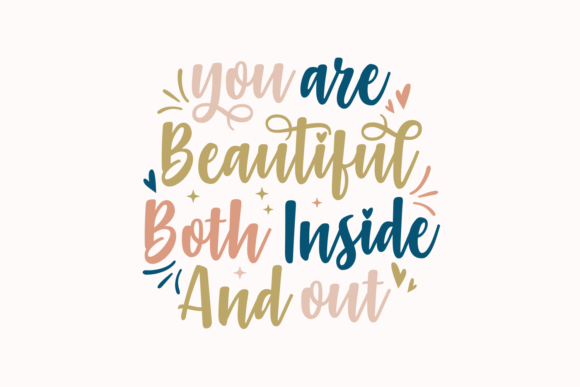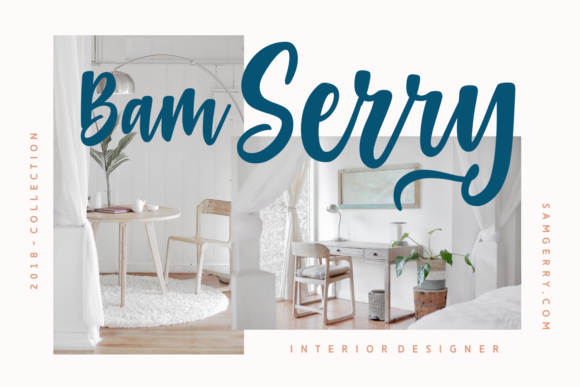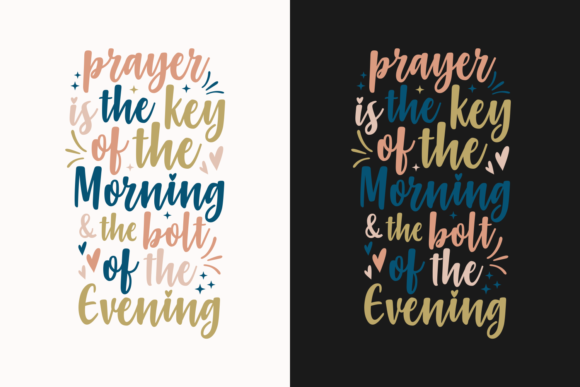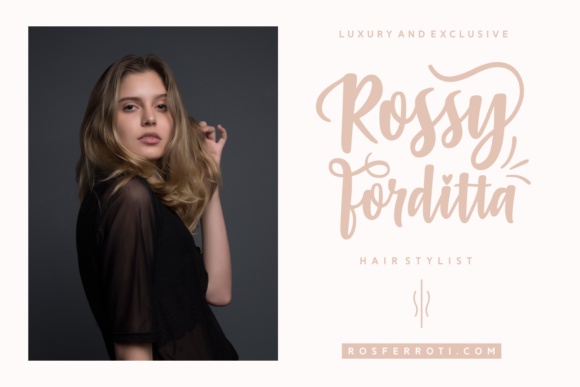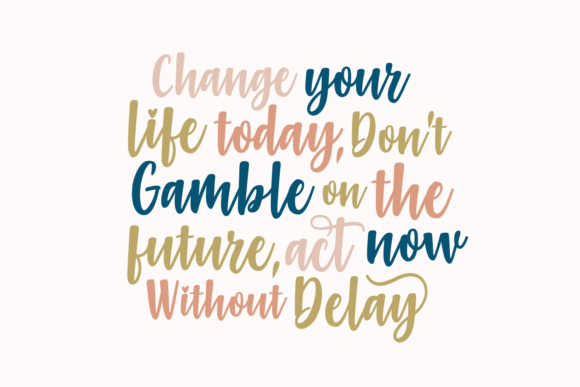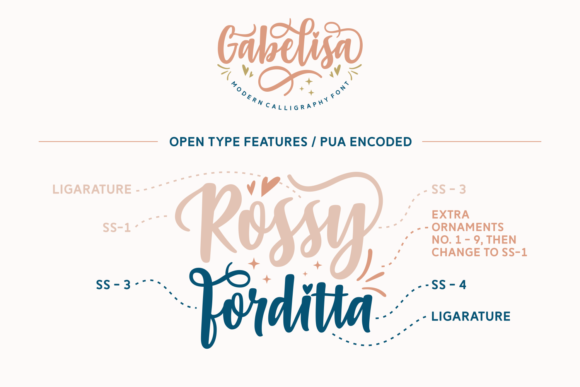
Gabelisa Font: Elevate Your Designs with Luxurious Hand-Lettered Elegance
Are you tired of using the same old fonts in your designs? Do you want to add a touch of luxury and sophistication to your projects? Look no further than the Gabelisa Font, a stunning display font that will give your designs a high-end, hand-lettered feel. In this article, we’ll dive into the features and benefits of Gabelisa, and explore how it can elevate your designs to the next level.
A Jaw-Droppingly Gorgeous Display Font
Gabelisa is a true showstopper, with its swashy, delicate script letters that exude elegance and refinement. This beautiful font is perfect for designers and crafters who want to add a touch of luxury to their projects, whether it’s a modern design or a throwback vintage look. With Gabelisa, you can create stunning headlines, titles, and text that will grab attention and leave a lasting impression.
Tons of Stylistic Alternates for Endless Creativity
One of the standout features of Gabelisa is its extensive range of stylistic alternates. With multiple options for each letter, you can create unique and compelling designs that reflect your personal style. Whether you’re working on a logo, branding project, or social media graphics, Gabelisa’s alternates give you the flexibility to experiment and try new things.
From subtle variations to more dramatic changes, Gabelisa’s stylistic alternates allow you to customize your text to suit your design needs. Want to add a touch of whimsy to your design? Try swapping out a few letters with Gabelisa’s more ornate alternates. Need a more streamlined look? Opt for the simpler, more elegant options.
Versatile and Adaptable: Perfect for Modern and Throwback Designs
Gabelisa is more than just a pretty font – it’s also incredibly versatile. Whether you’re working on a modern design or a throwback vintage project, Gabelisa adapts seamlessly to any style. Its delicate script letters and swashy flourishes evoke a sense of nostalgia, while its clean lines and elegant feel keep it firmly rooted in the present.
Use Gabelisa to create stunning:
- Headlines and titles for blogs and websites
- Invitations and event materials
- Product packaging and labels
Why Choose Gabelisa Font?
So why choose Gabelisa over other fonts on the market? Here are just a few reasons:
- Unique and eye-catching: Gabelisa’s swashy script letters and stylistic alternates make it a true standout in any design.
- Versatile and adaptable: Gabelisa works beautifully in both modern and vintage designs, making it a great addition to any design library.
- Elegant and sophisticated: Gabelisa’s luxurious feel makes it perfect for high-end designs, such as luxury brands, weddings, and special events.
Get Ready to Elevate Your Designs with Gabelisa
If you’re looking for a font that will take your designs to the next level, look no further than Gabelisa. With its stunning script letters, extensive range of stylistic alternates, and versatile adaptability, Gabelisa is the perfect choice for designers and crafters who want to add a touch of luxury to their projects.